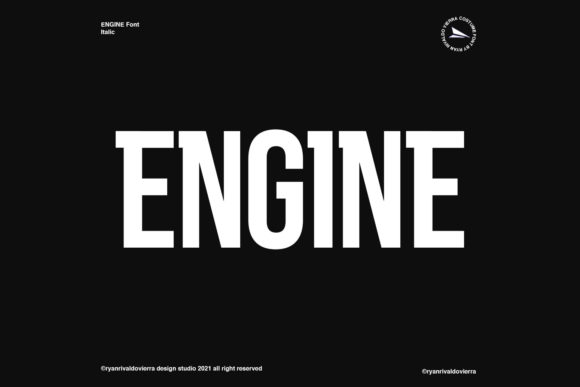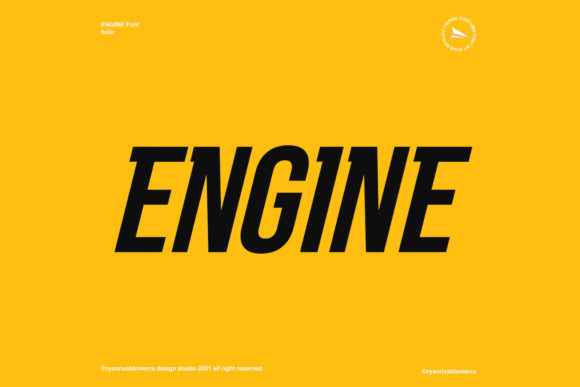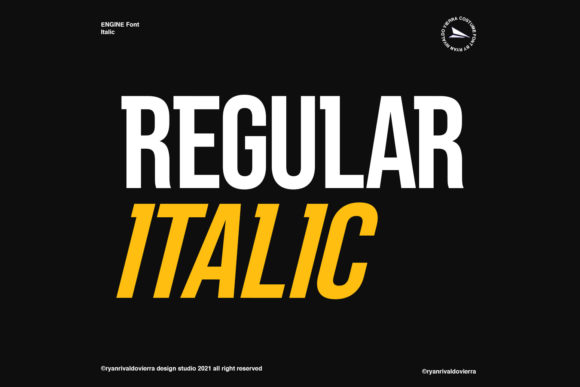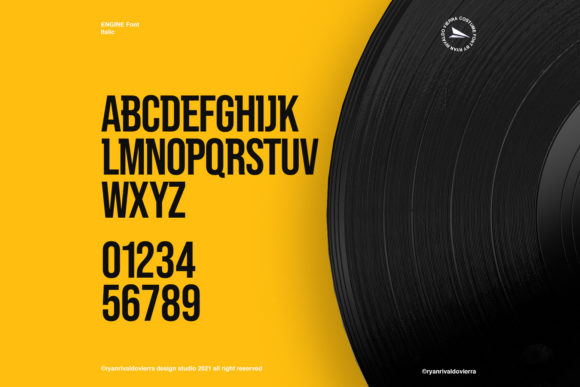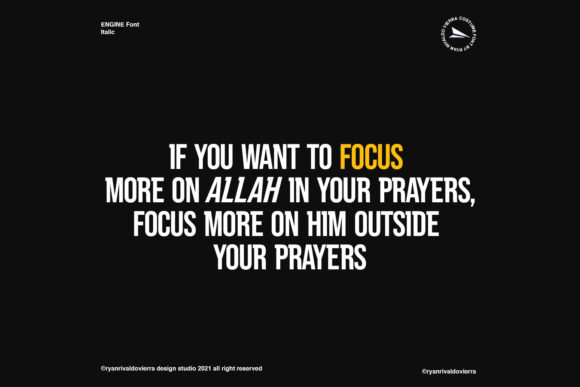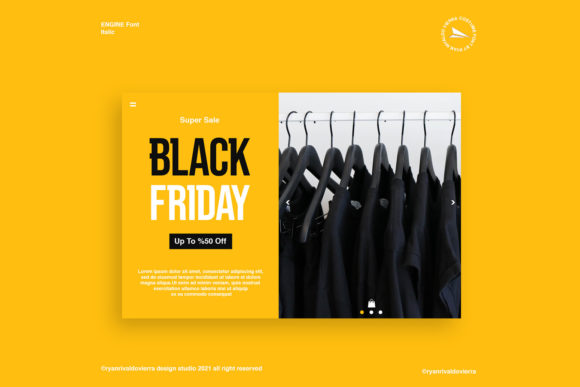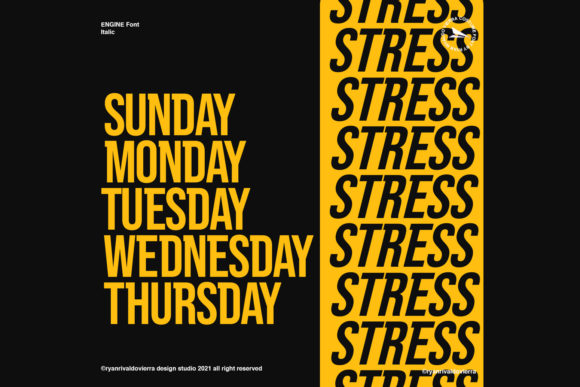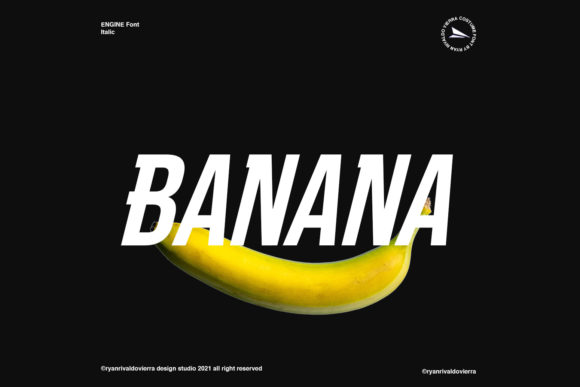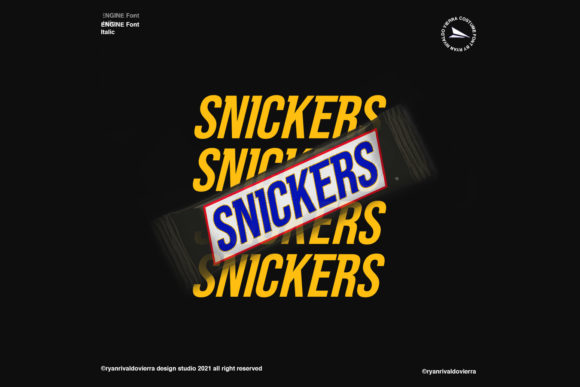
Engine
About Engine Font
Engine is a bold display font. Masterfully designed to become a true favorite, this font has the potential to bring each of your creative ideas to the highest level!